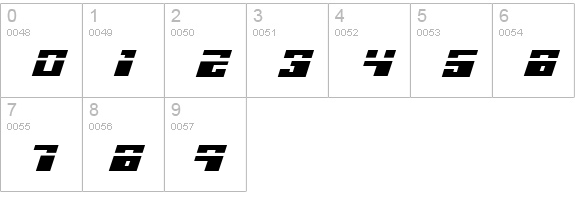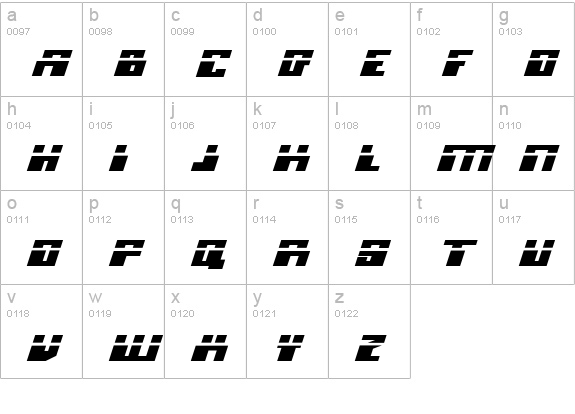
Micronian Expanded Laser Italic is a distinctive, extended-width, italic variant in the Micronian typeface family \xE2\x80\x94 well suited to design and typography projects.
The Micronian Expanded Laser Italic font exudes a sense of modernity and sophistication with its sleek and futuristic design. Its sharp angles and bold curves make it perfect for adding a touch of contemporary flair to any project. The Micronian Expanded Laser Italic font is versatile and can be used for a wide range of design applications, from branding to digital art. Best of all, this cutting-edge font is available for free download at FontsMarket.com. So, whether you're a graphic designer looking to elevate your projects or a creative enthusiast in search of a fresh new font, the Micronian Expanded Laser Italic font is a must-have addition to your font collection. Download it today and unleash your creativity with this stylish and dynamic typeface.